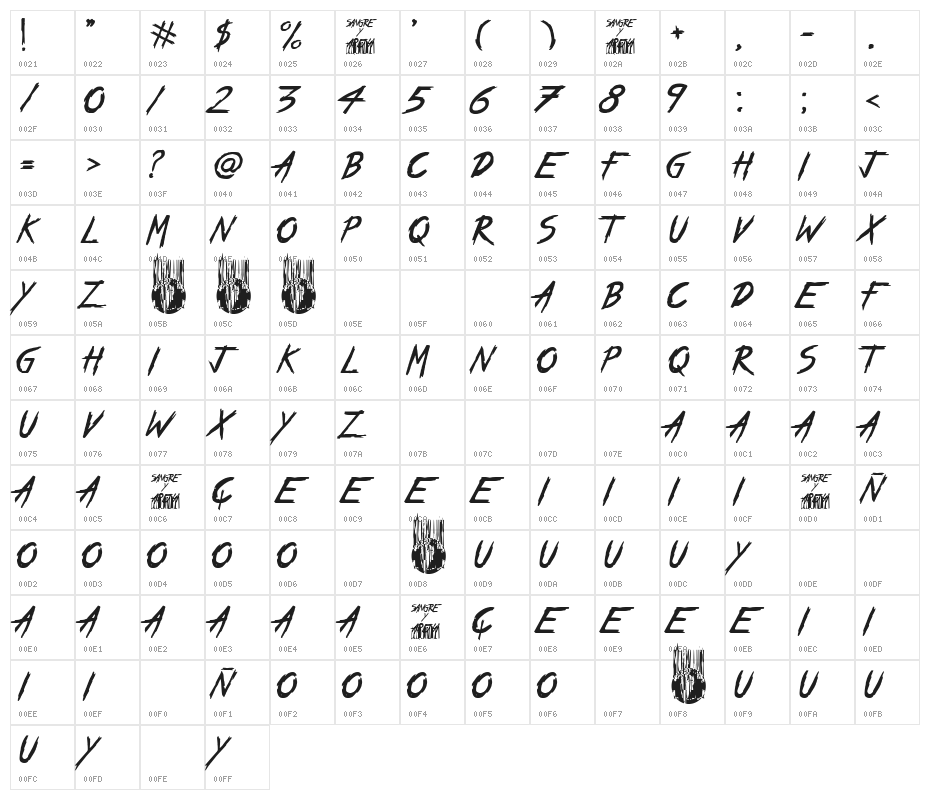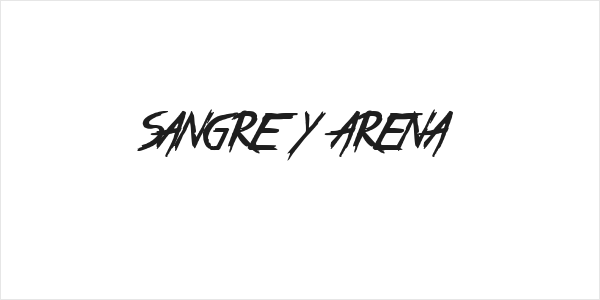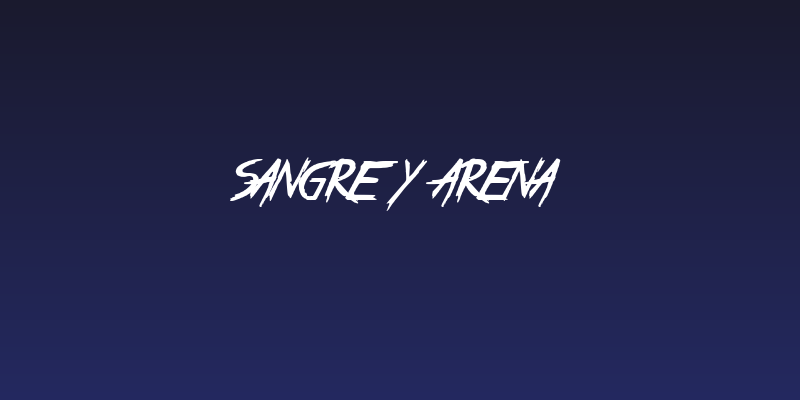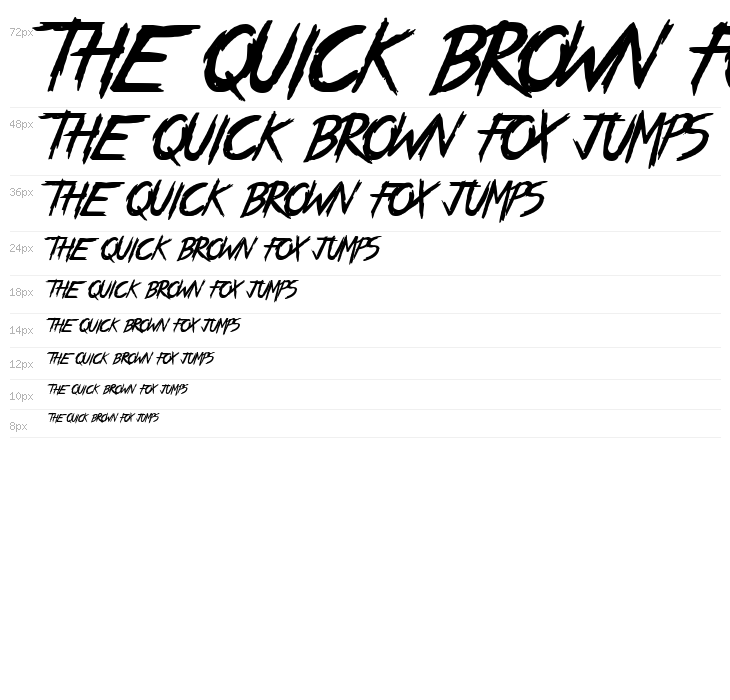
Sangre y Arena Font
Sangre y Arena Description
This font features a bold and dynamic script style with sharp, angular strokes that convey a sense of energy and movement. The uppercase and lowercase letters are designed with a consistent slant, giving the text a forward-leaning appearance. The characters are tightly spaced, enhancing the compact and impactful look. The numbers and special characters maintain the same energetic style, making them suitable for attention-grabbing designs. The overall aesthetic is edgy and modern, ideal for projects that require a strong visual impact.
| Overall Style | Modern, Edgy |
| Proposed Projects | Ideal for branding, posters, album covers, and any design needing a bold, energetic look. |